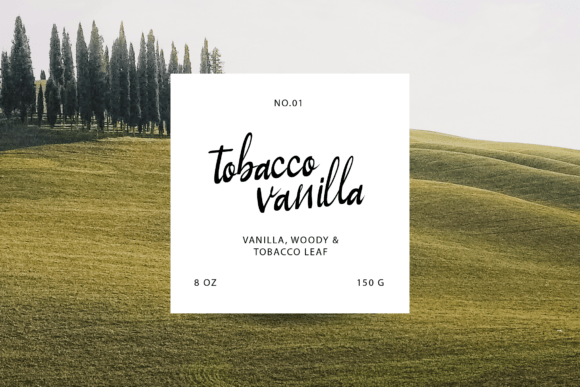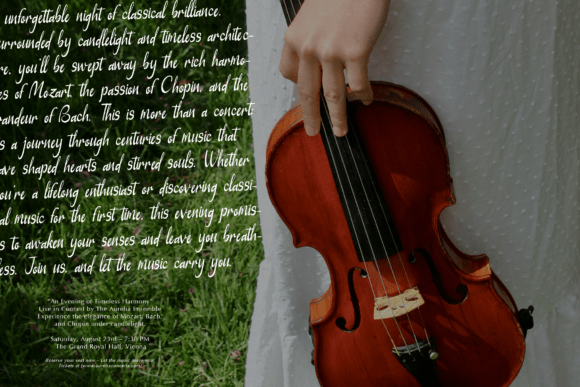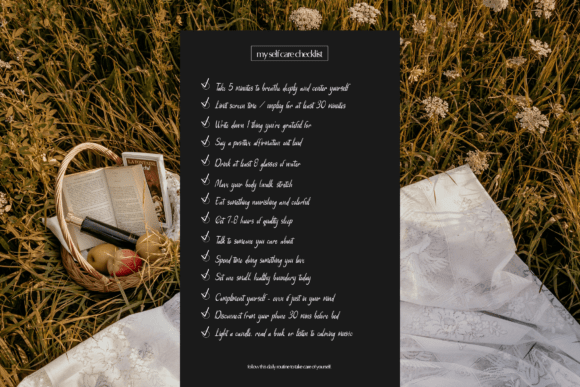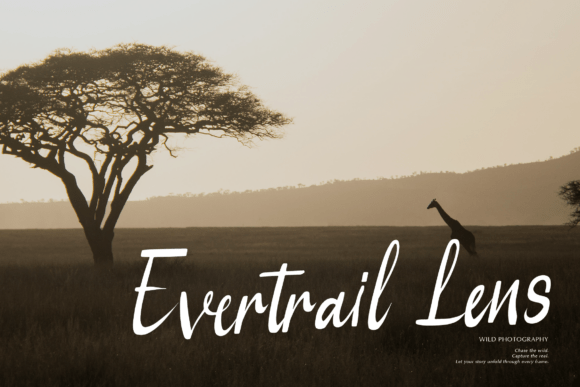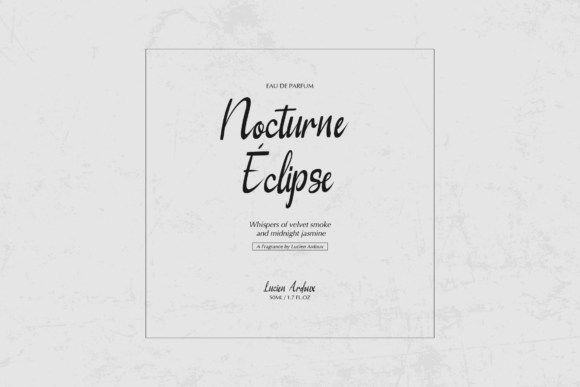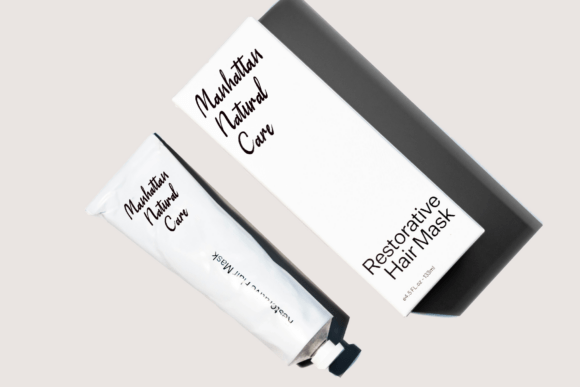
Introduction to Serena Note Font
Serena Note is a casual handwritten font, suitable for any projects such as: logos, branding projects, homeware designs, product packaging, mugs, quotes, posters, shopping bags, t-shirts, book covers, name card, invitation cards, greeting cards, label, photography, watermark, special events, and all your other lovely projects that need a Casual Handwritten Font taste.
Serena Note is a casual handwritten font, suitable for any projects such as: logos, branding projects, homeware designs, product packaging, mugs, quotes, posters, shopping bags, t-shirts, book covers,
Key Features of Serena Note Font
Why Choose Serena Note Font?
Serena Note Font offers exceptional quality and versatility, making it a valuable addition to your design toolkit. Whether you’re creating for personal projects or commercial use, Serena Note Font delivers professional results.